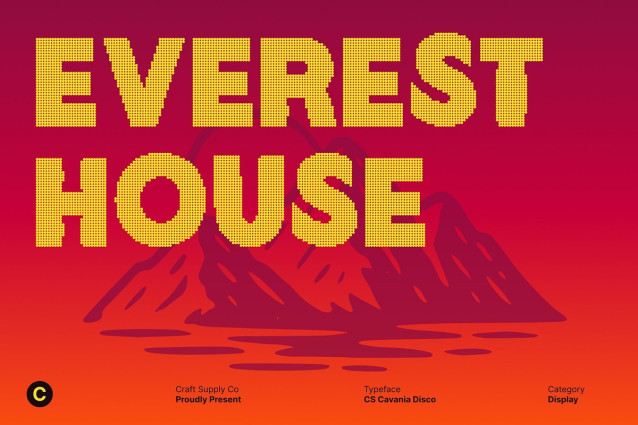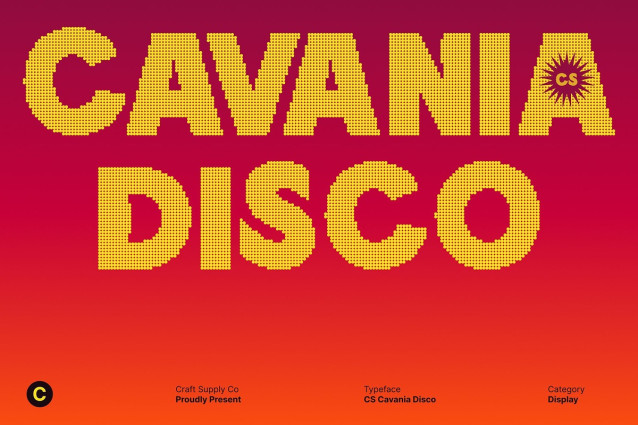
CS Cavania Disco Font
CS Cavania Disco Font This is a bold sans serif display font that captures attention with its strong, modern structure and radiant disco flair. Each letter is crafted to stand out, combining geometric precision with a shimmering effect that adds glamour and excitement to any design.
Bold Shapes for Maximum Impact Built for visibility and confidence, this font features thick strokes and sharp contours that make a powerful impression. Whether you’re designing event posters, digital graphics, or contemporary logos, its commanding presence ensures your text remains the star of the show.
Disco Sparkle for Vibrant Visual Energy The disco inspired details bring a sense of movement, light, and energy transforming simple typography into a visual celebration. The subtle shine effect enhances its festive character, making it ideal for party visuals, nightlife promotions, or stylish branding that needs to radiate charisma.
Perfect for Modern and Creative Branding From headlines and editorial layouts to digital campaigns and brand identities, this font delivers a blend of professional polish and playful spirit. It’s the perfect typeface for designers who want to express modern boldness with a touch of sparkle a true fusion of confidence, creativity, and disco glamour.